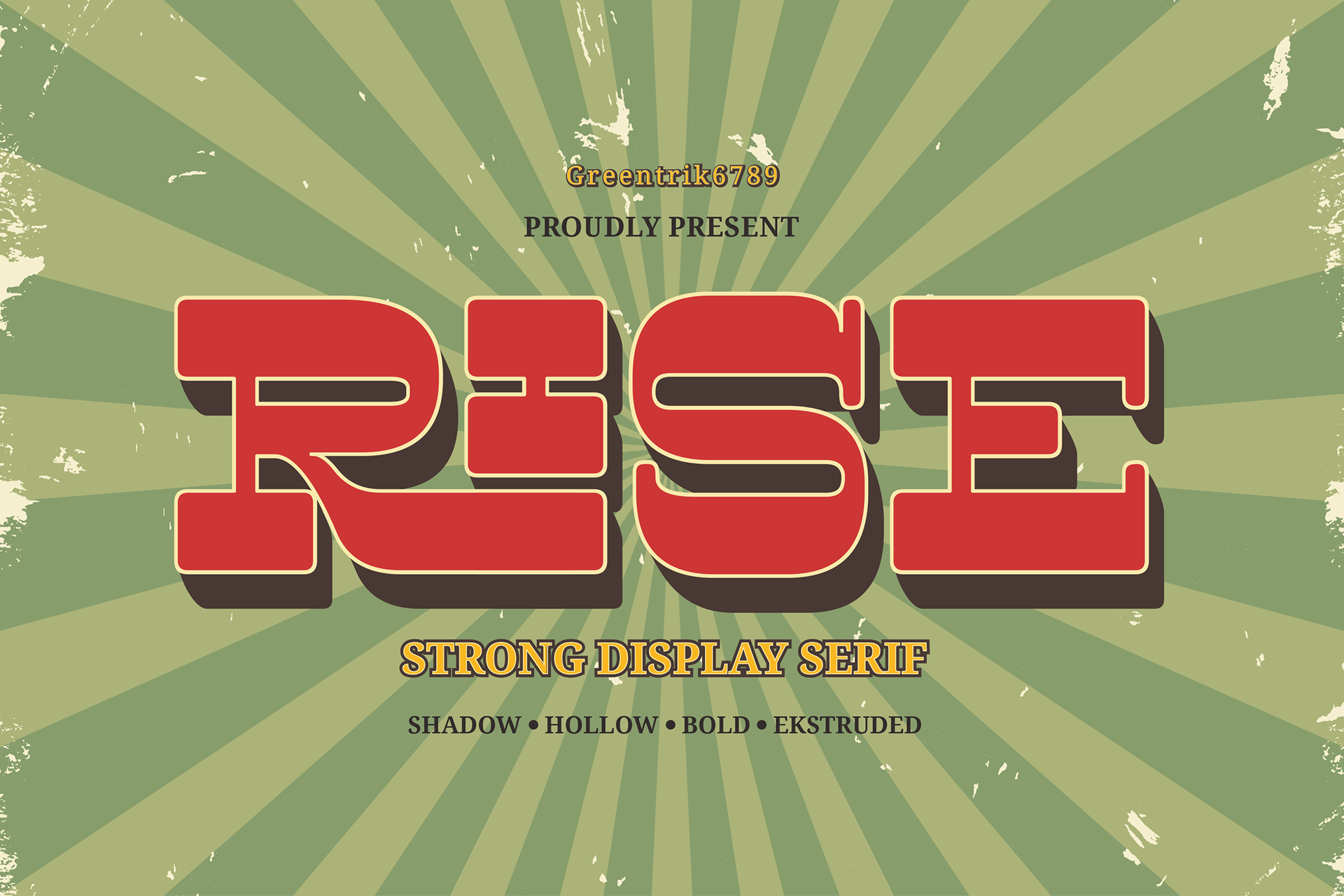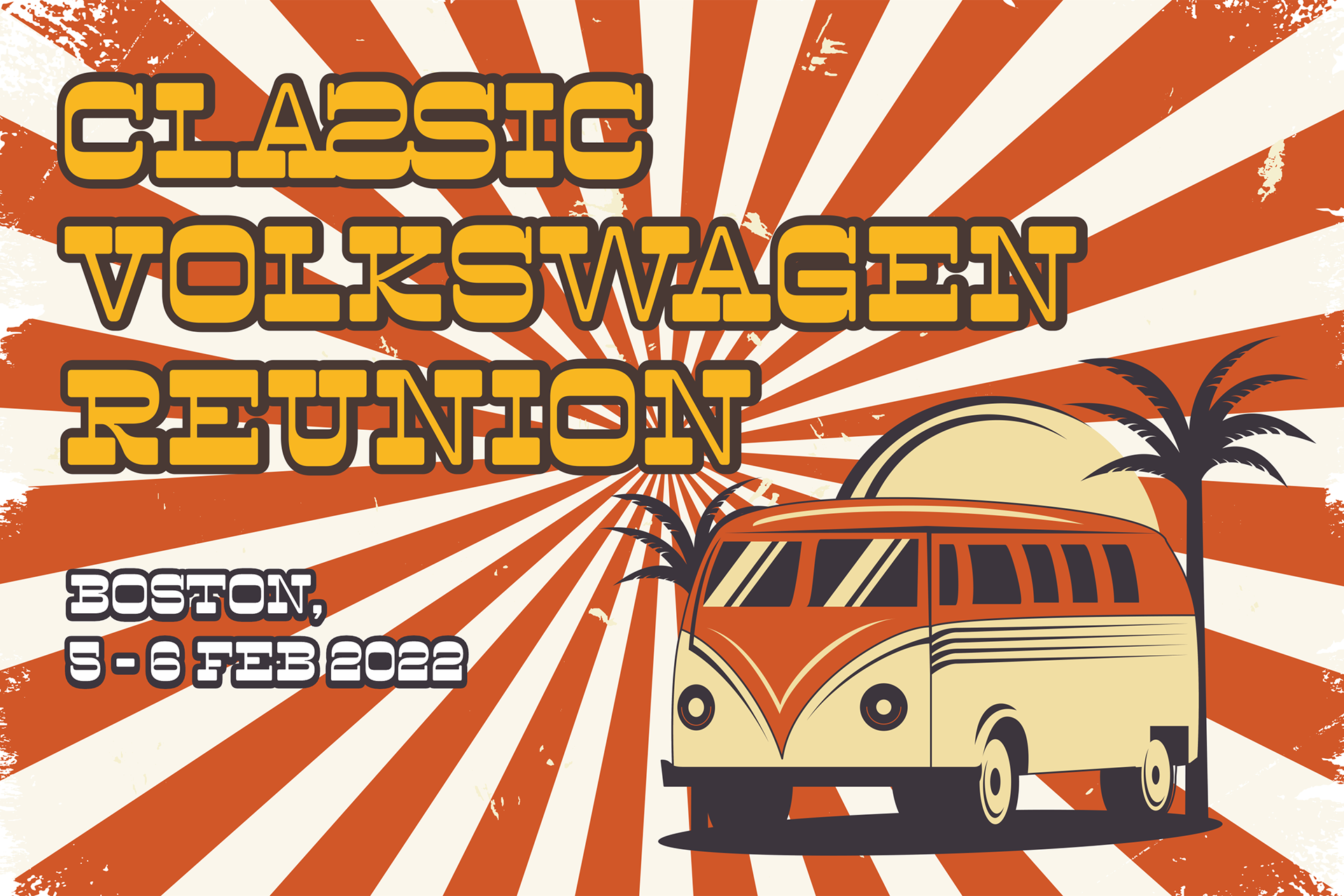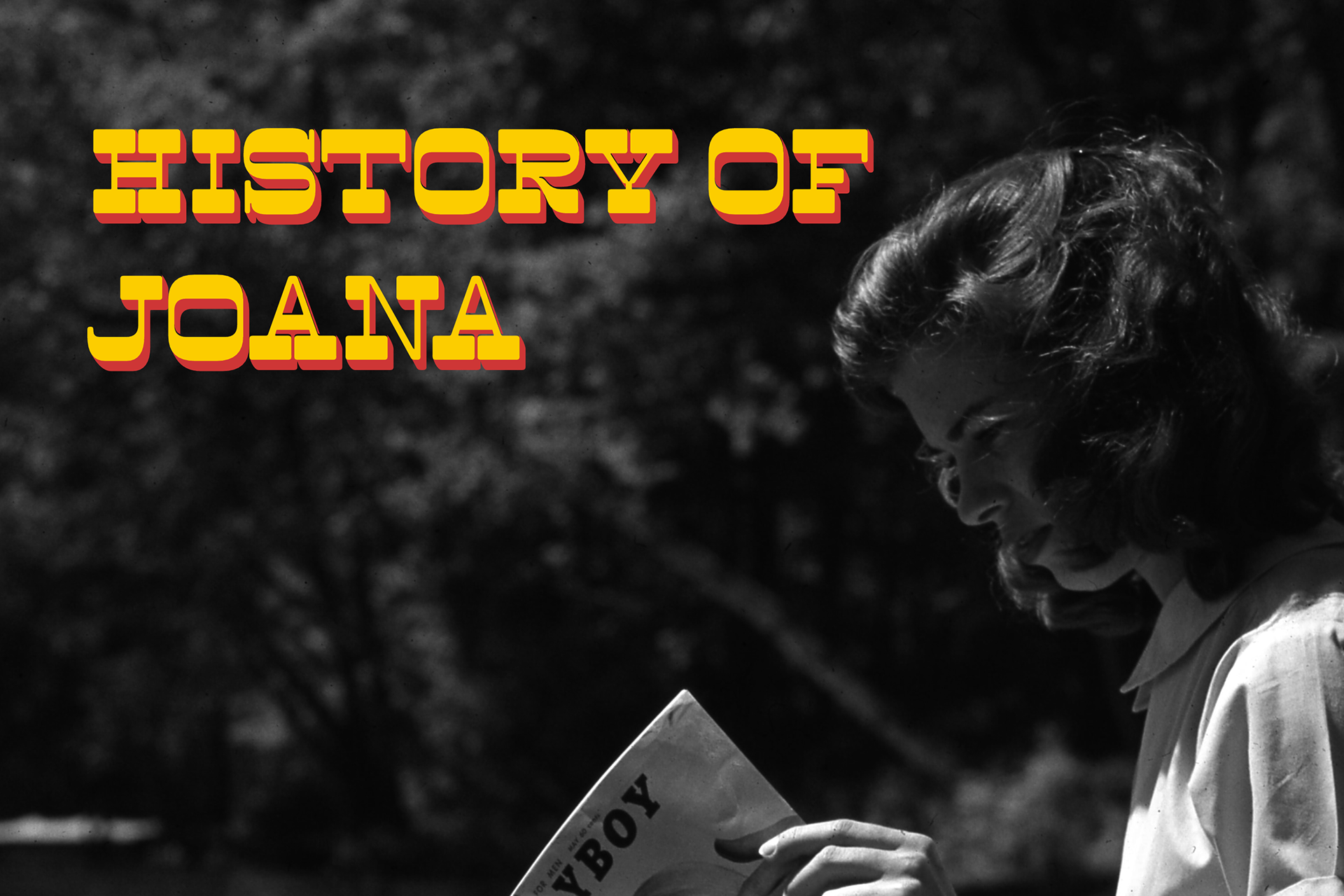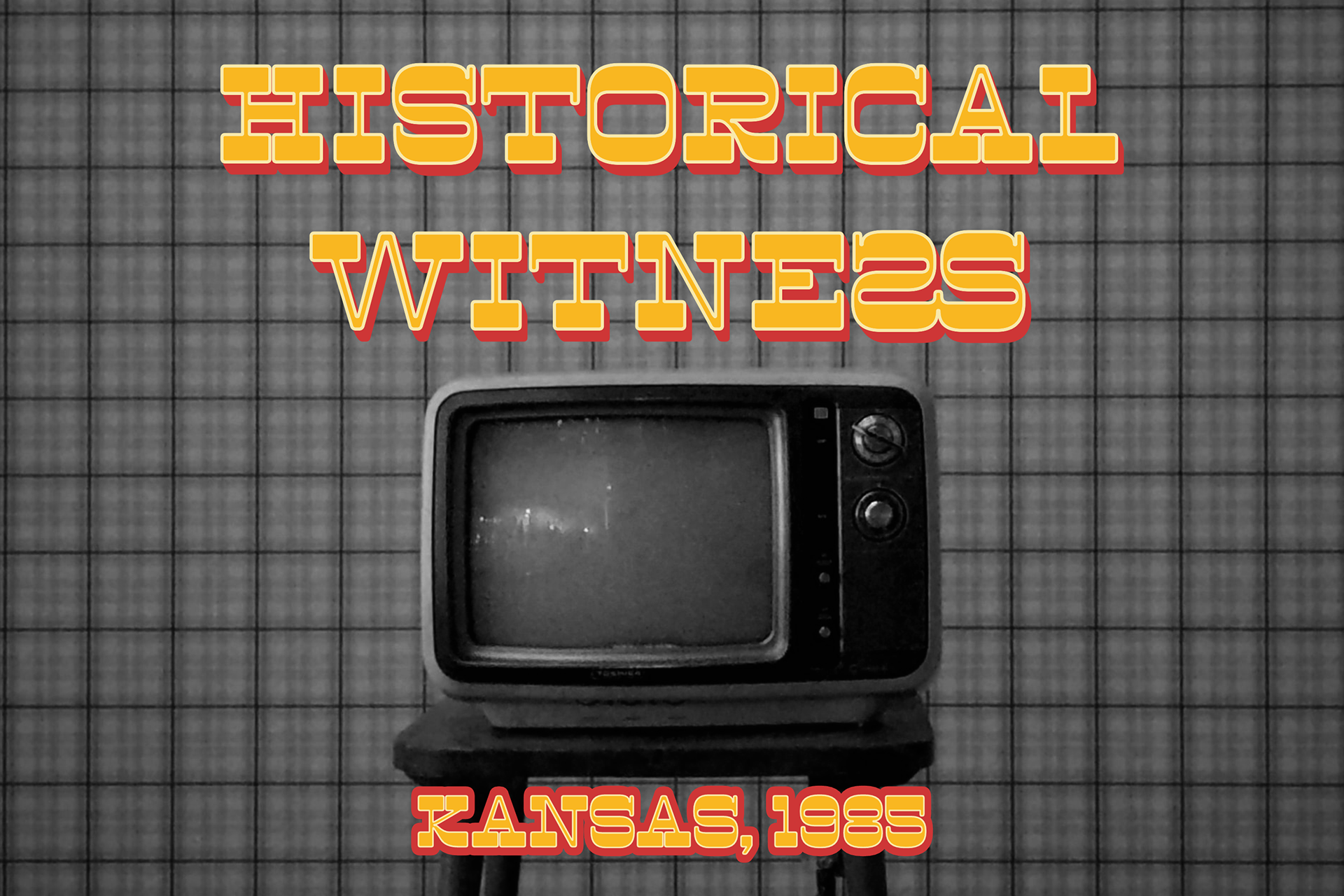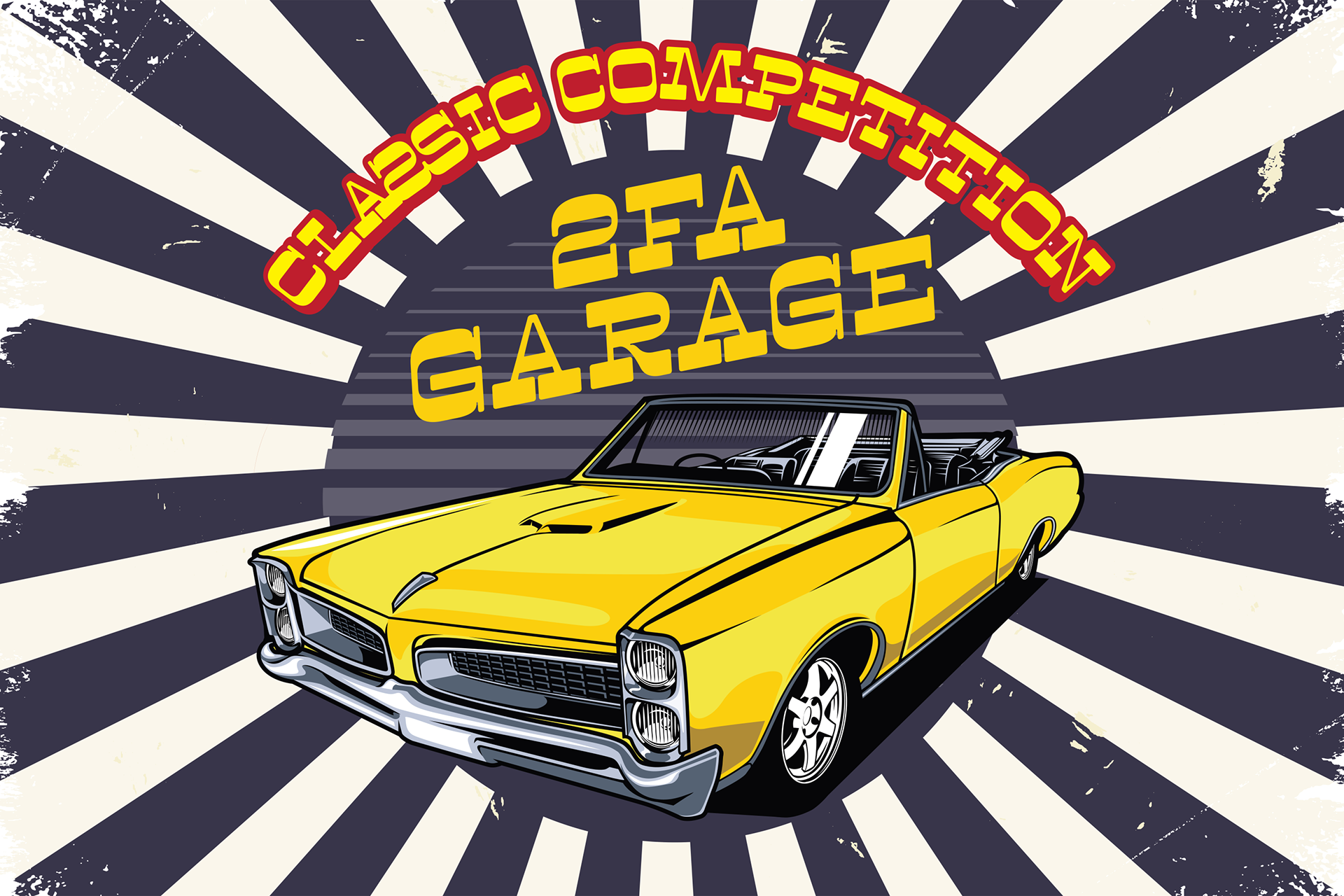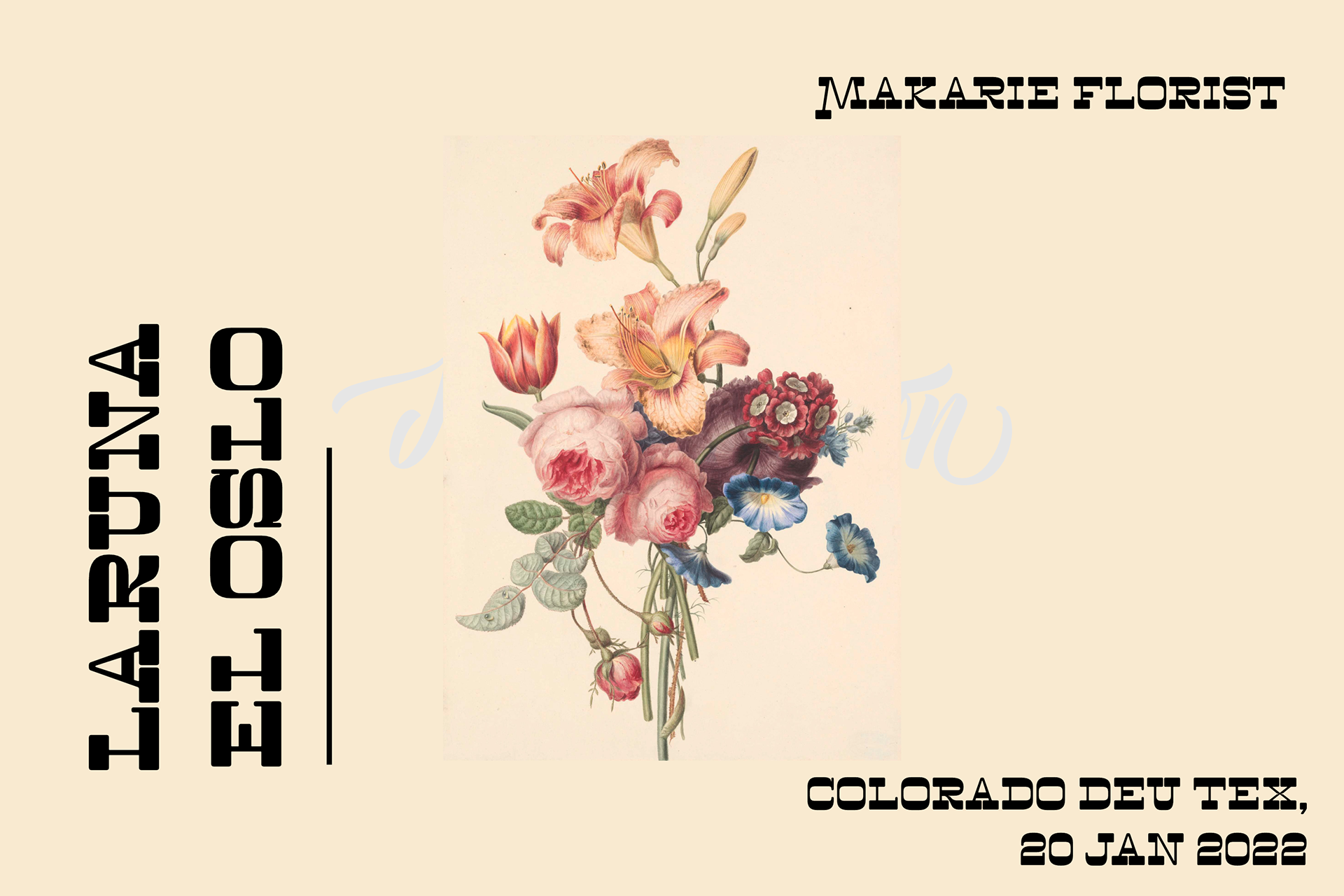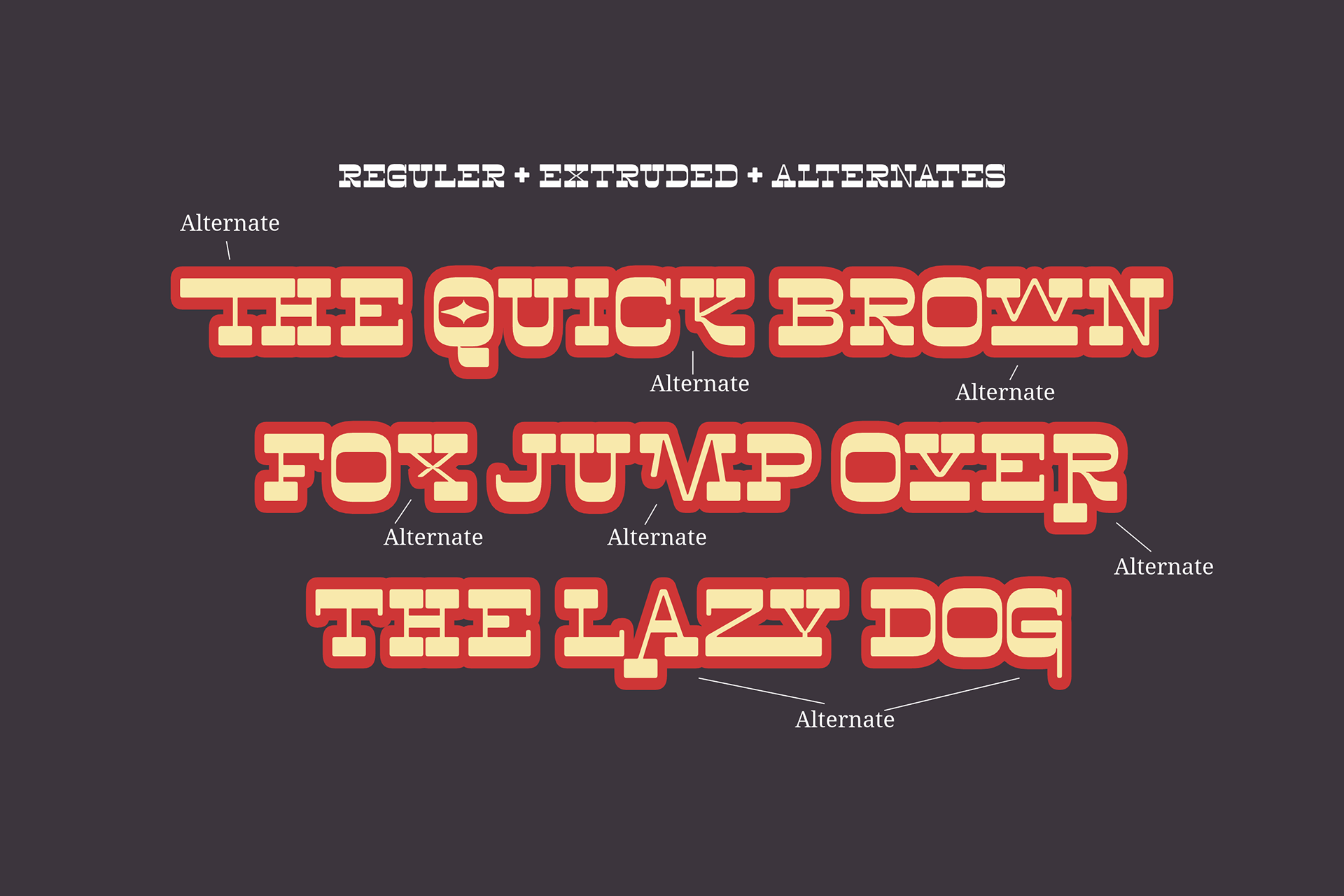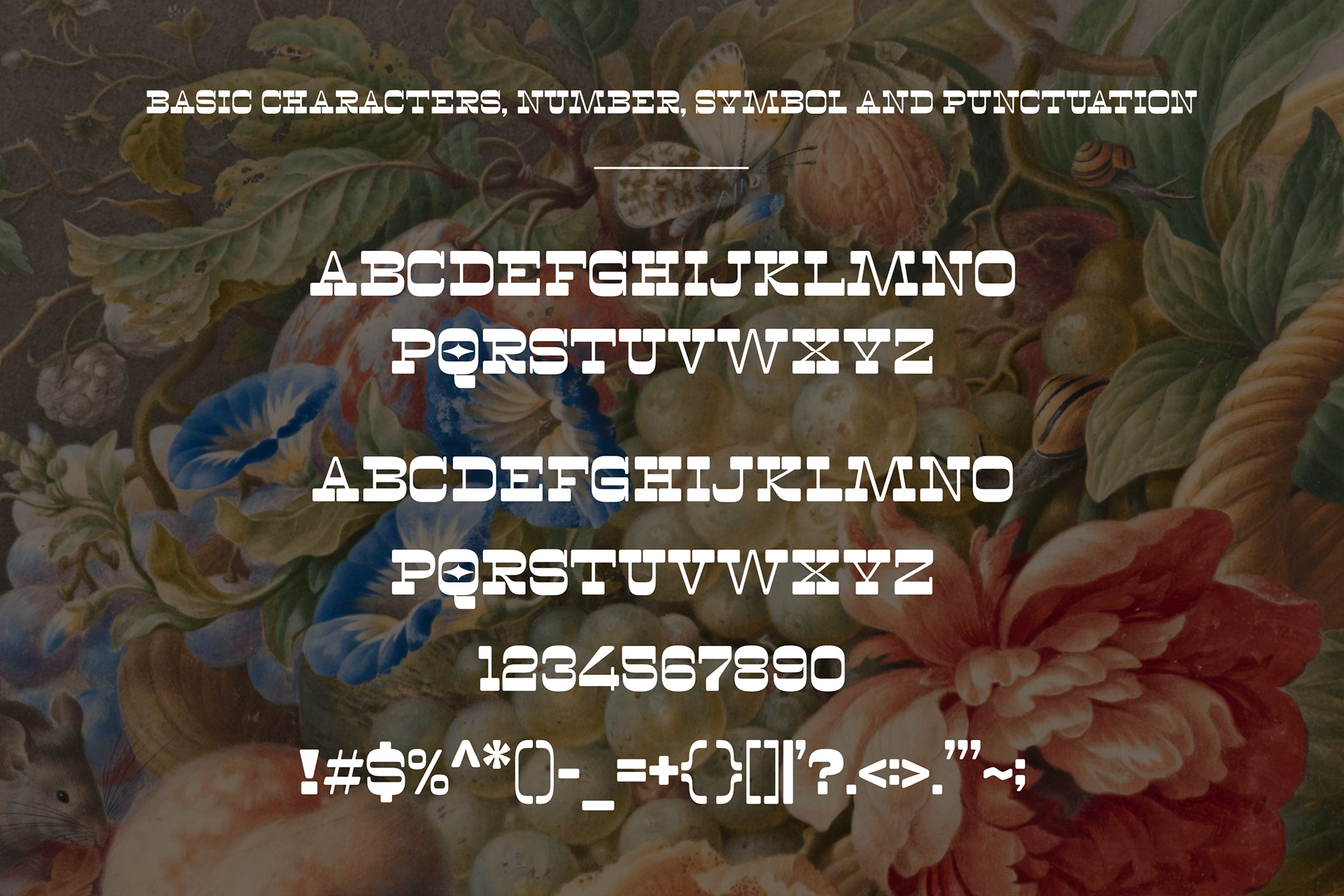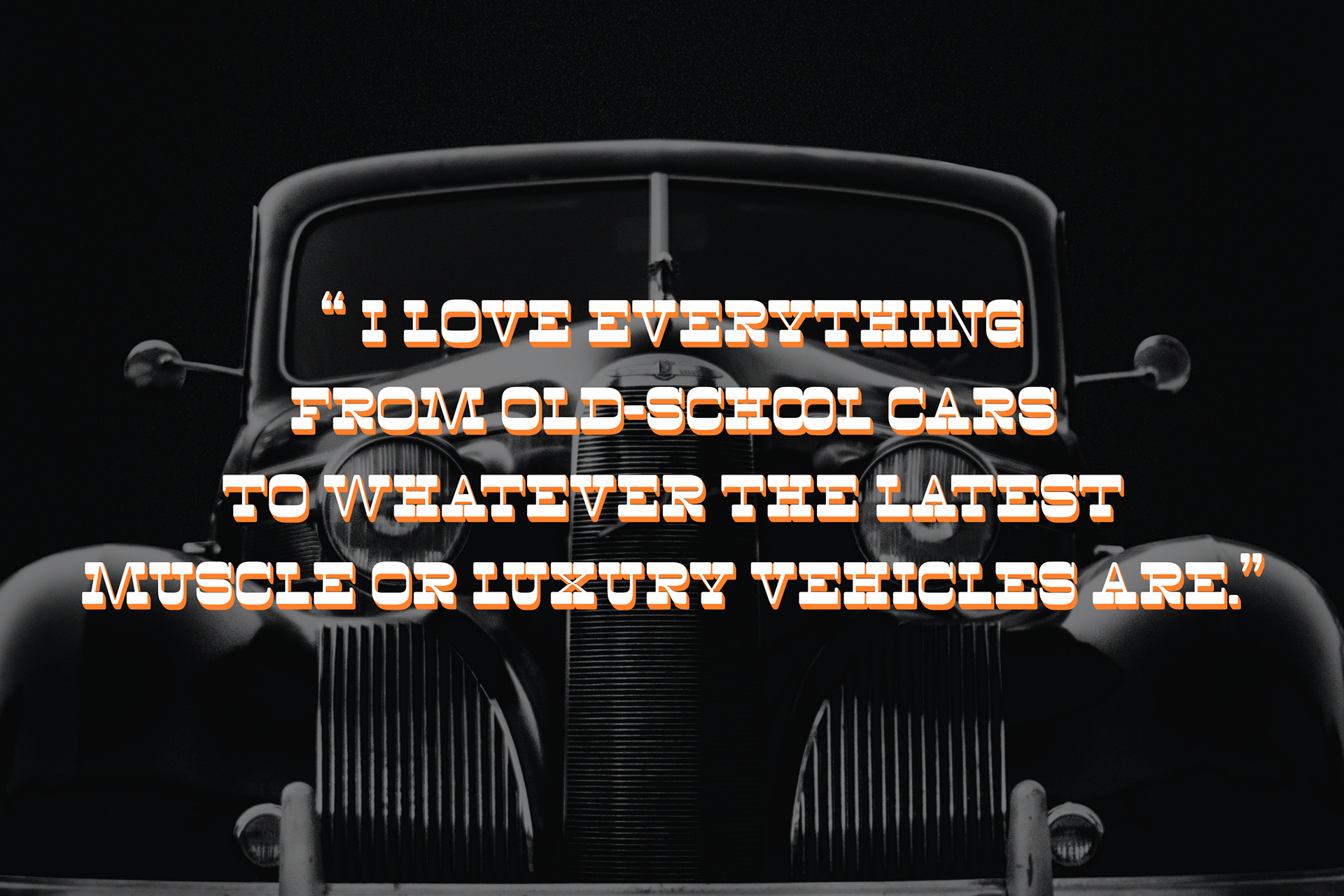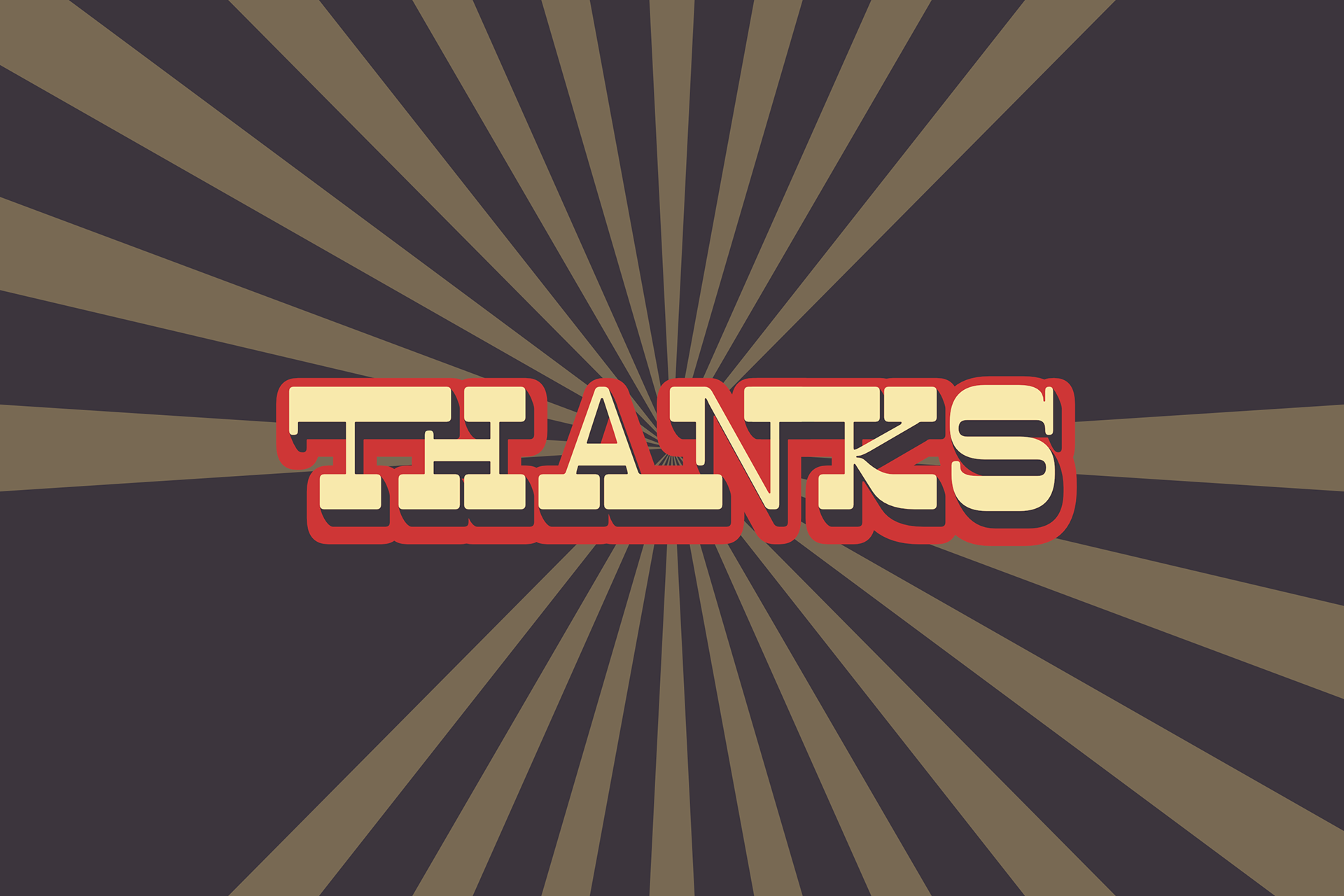
Are you looking for an eye-catching display font? This fonts will do it for you!
Rise is a strong display font with reverse contrast so it grabs a lot of attention in the crowd.
Rise will be very suitable for marketing design needs such as posters, flyers, advertisements, labels, book covers, film titles and various design needs with retro vintage style.
Comes in Regular, hollow, shadow, extruded, and bold styles. Also come with several alternatives for lowercase characters that you can use to add aesthetics to your designs.